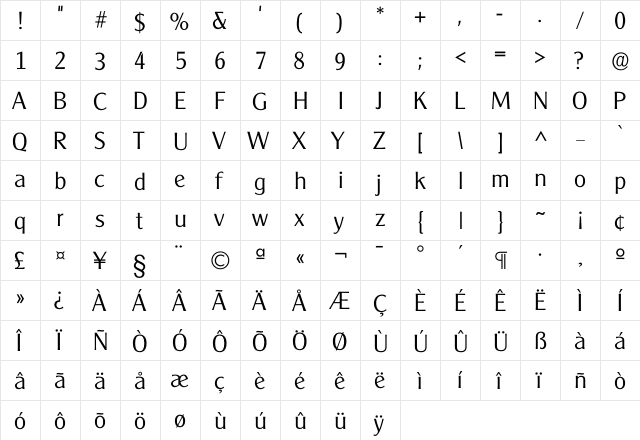
Cleaxg Light
Design Context for Cleaxg Typeface
Cleaxg is a composed and adaptable typeface that performs quietly and consistently across a wide range of design contexts. Its slender proportions lend an understated elegance to any composition.